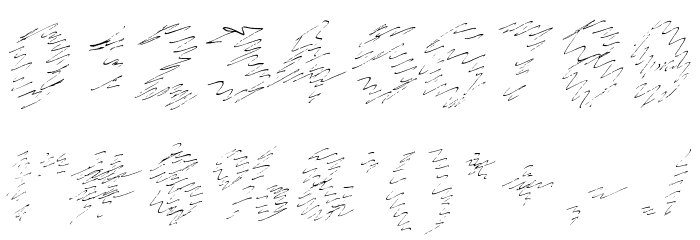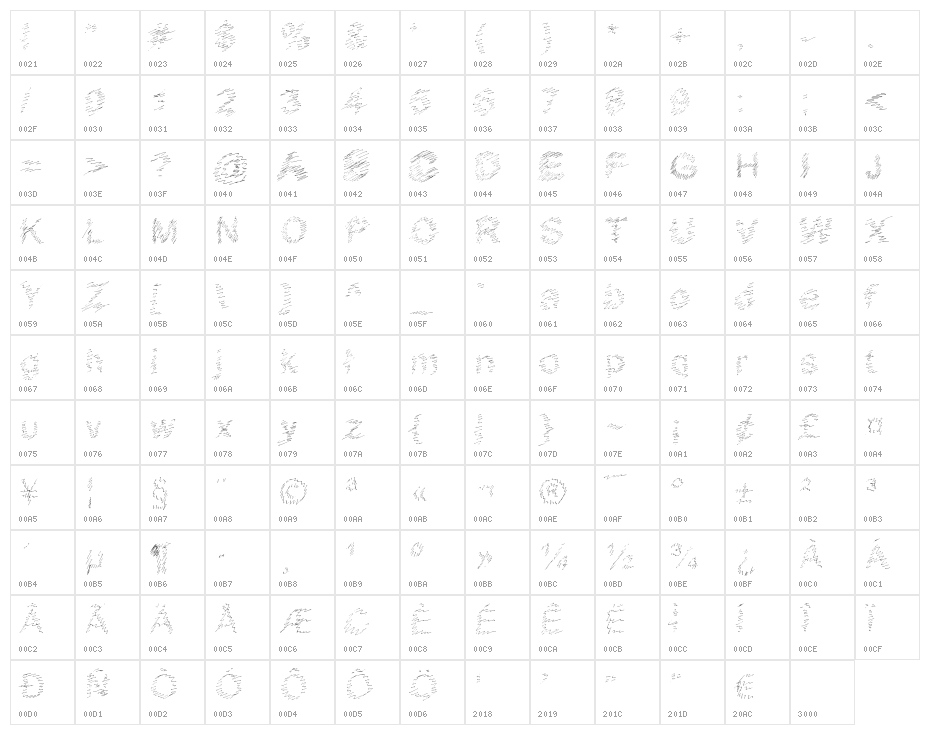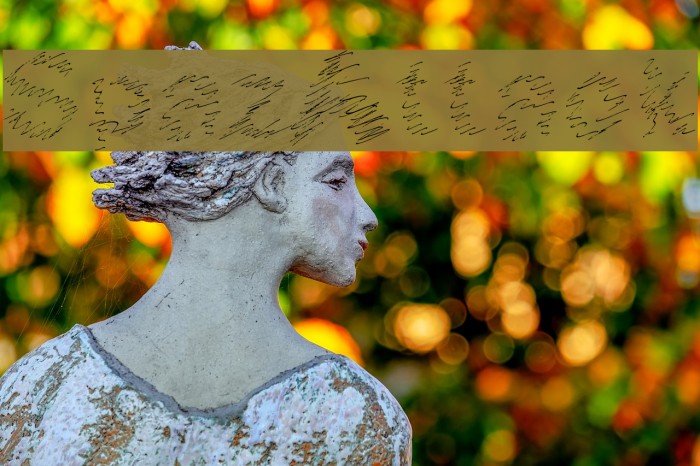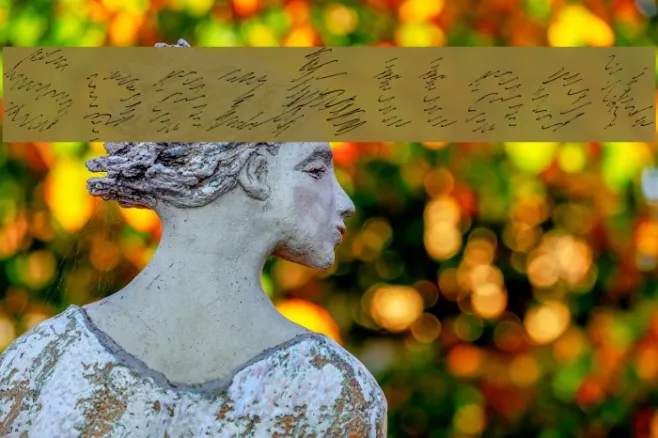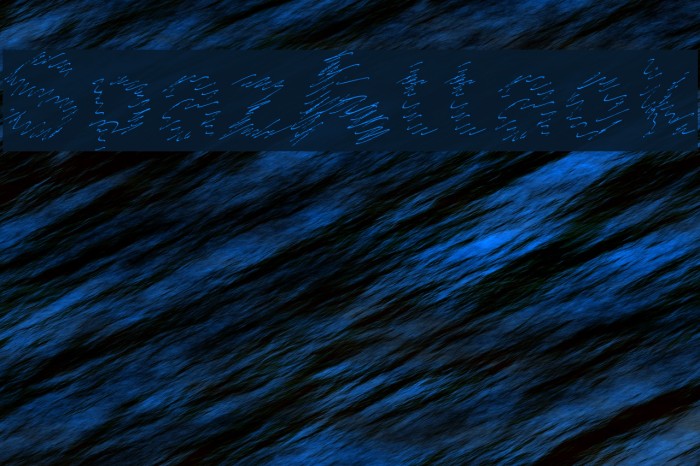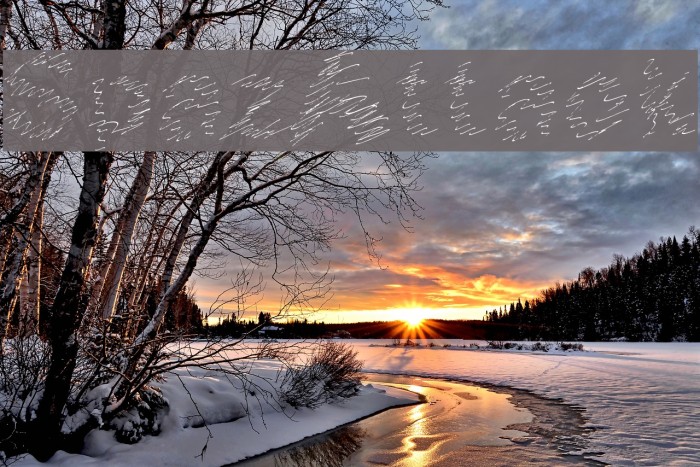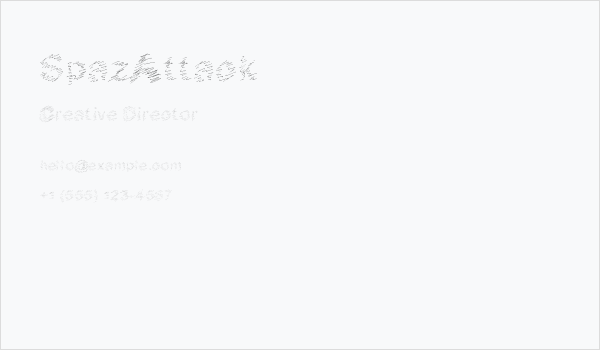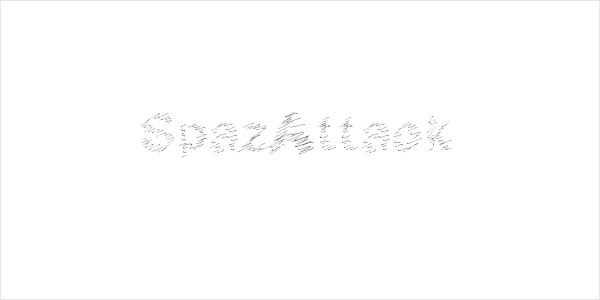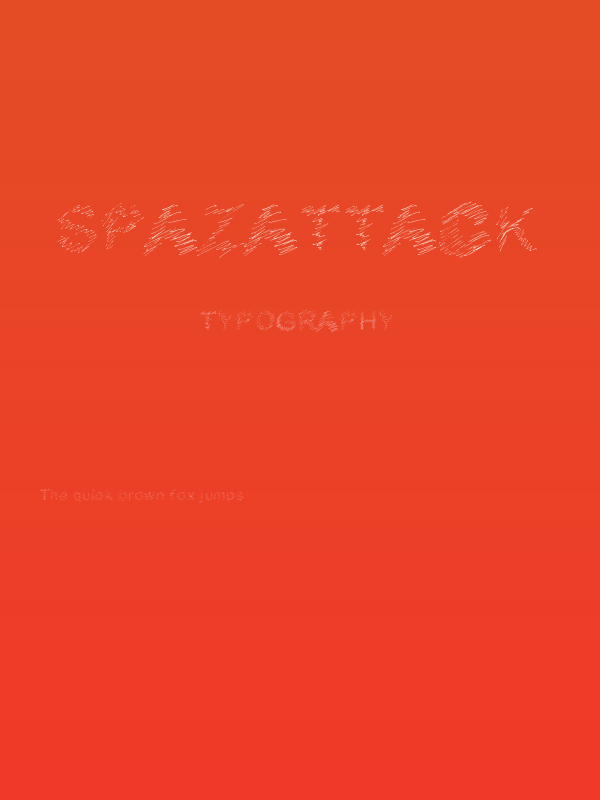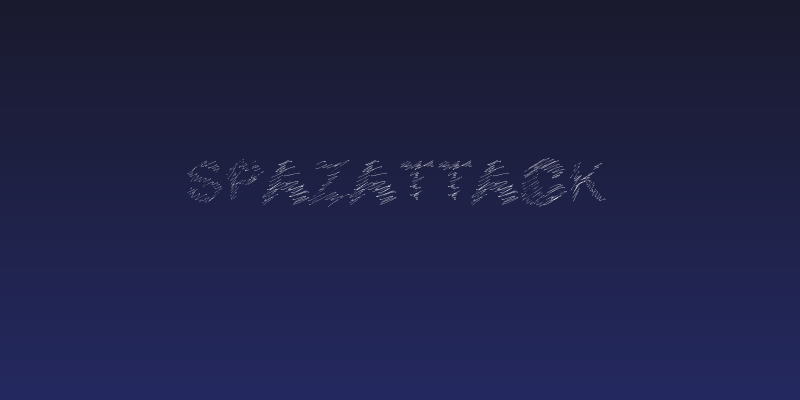
SpazAttack Font
SpazAttack Description
This font features a unique, sketch-like appearance with a playful and chaotic style. Each character is composed of irregular, scribbled lines that give it a hand-drawn, energetic feel. The letters vary in thickness, creating a dynamic and lively texture across the text. Despite its seemingly random strokes, the font maintains legibility and a consistent baseline, making it suitable for creative and informal designs. The uppercase and lowercase letters share a similar style, with the numerals and special characters following the same whimsical pattern.
| Proposed Projects | Ideal for creative projects such as posters, children's book covers, playful branding, and artistic invitations. |